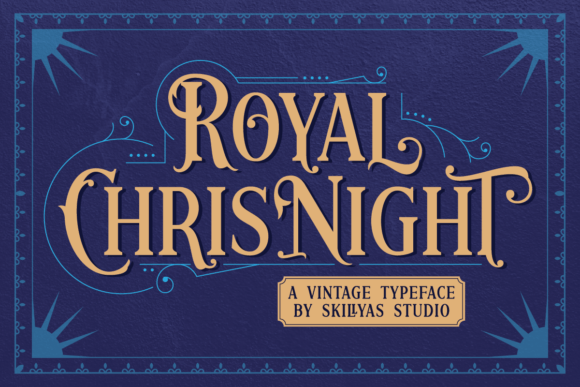
Journey into a world of captivating artistry with Royal Chrisnight, the extraordinary serif font family meticulously crafted by the masterminds at Skillyas Studio. As the name suggests, Royal Chrisnight exudes an atmosphere of festive cheer and elegance. Its modern yet enchanting style will cast a spell on your designs, inviting you to embark on a creative journey like never before.
Express your artistic vision with Royal Chrisnight. Its graceful curves and timeless beauty make it the perfect choice for poster designs that demand attention. The font's PUA encoding ensures effortless access to a treasure trove of glyphs and ligatures, empowering you to create designs that resonate with your audience.
Step into a realm where creativity knows no bounds. With Royal Chrisnight, your posters will radiate a touch of sophistication and charm. Its crisp, clean lines and harmonious flow will captivate your audience, leaving them spellbound by your artistic prowess.
Royal Chrisnight is more than just a font; it's an experience that will transform your designs. Its versatility extends beyond posters. Create stunning wedding invitations that evoke a sense of timeless romance. Design eye-catching social media graphics that leave a lasting impression. Craft logos that exude elegance and professionalism. The possibilities are endless.
Don't settle for ordinary fonts that fail to leave a mark. Choose Royal Chrisnight and embark on a creative adventure that will ignite your imagination and leave your audience in awe.